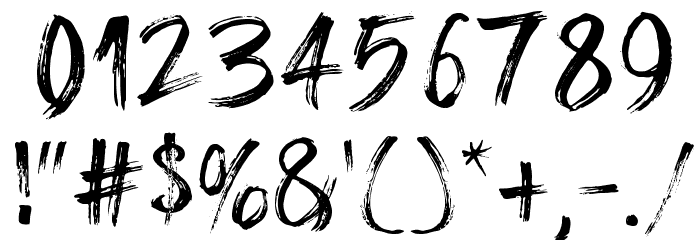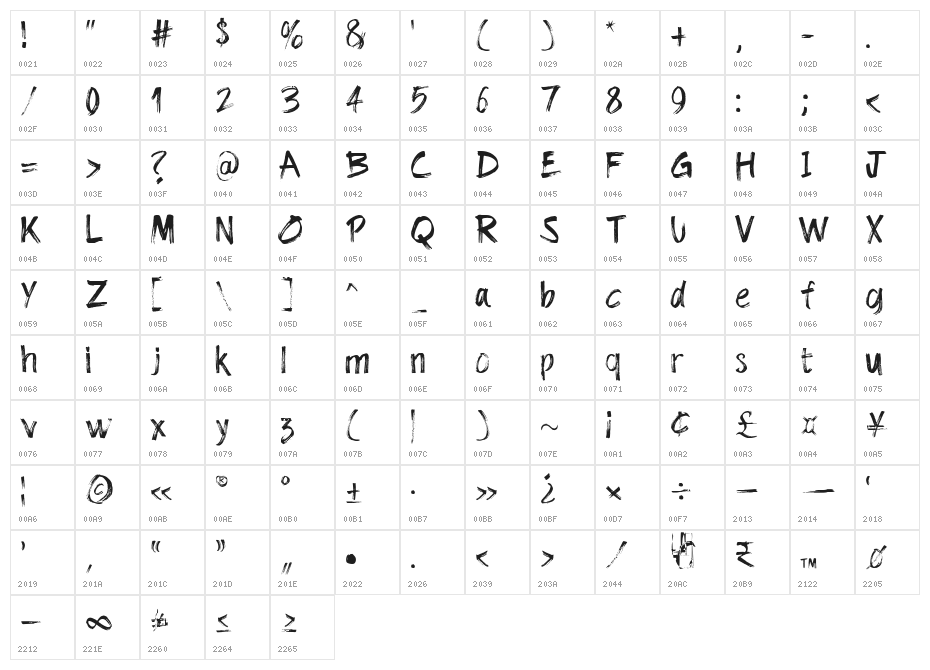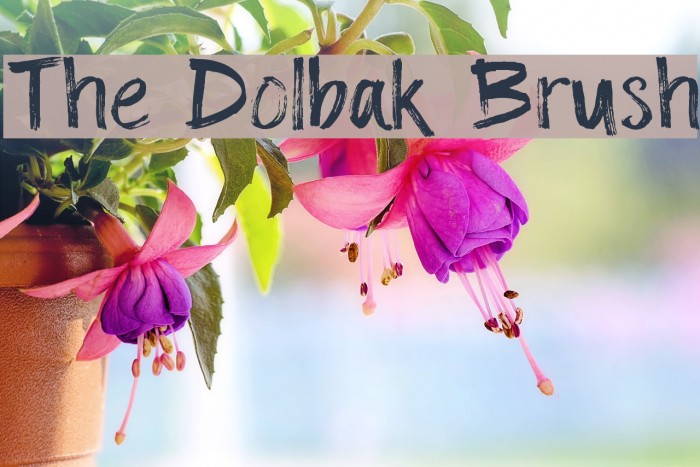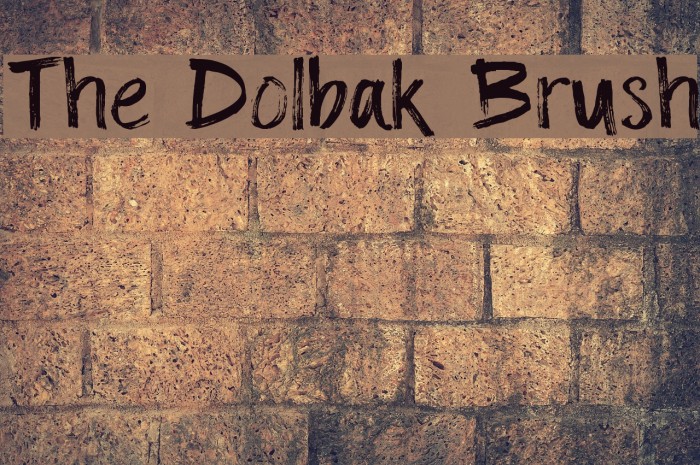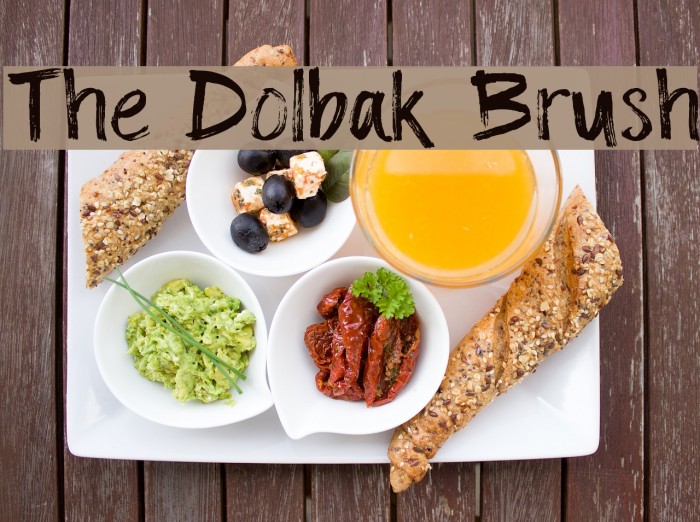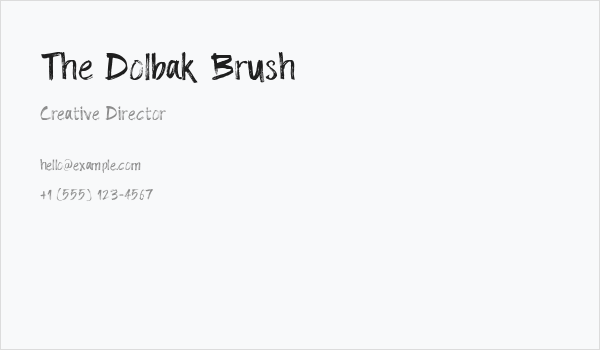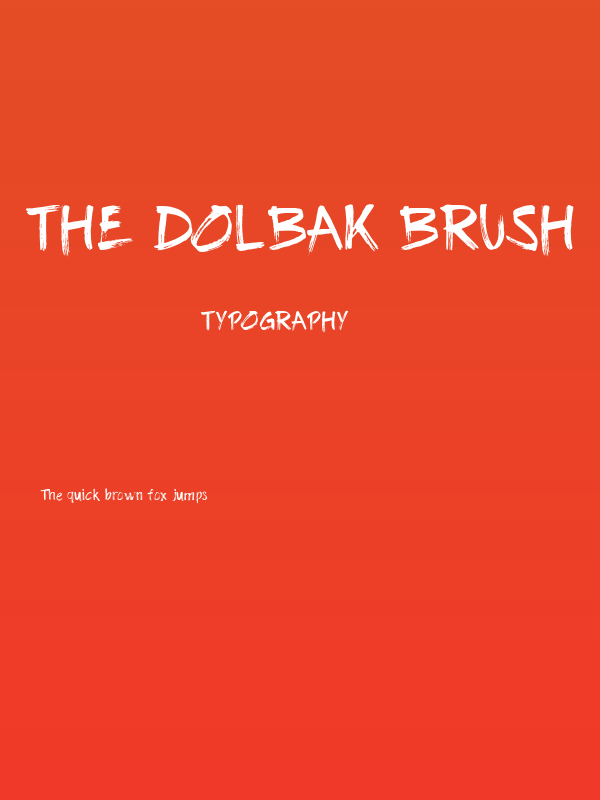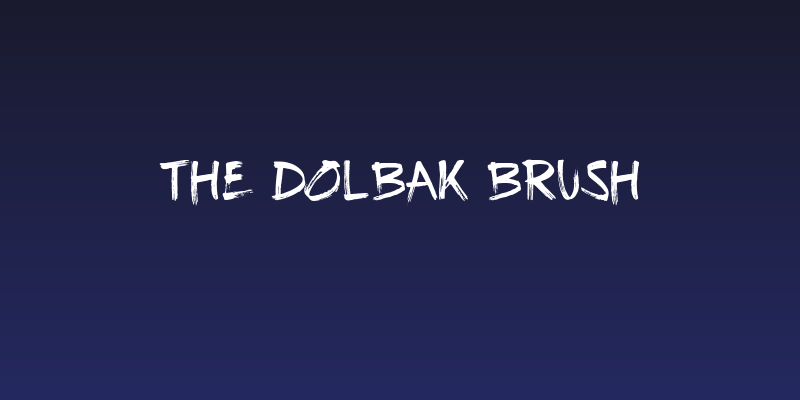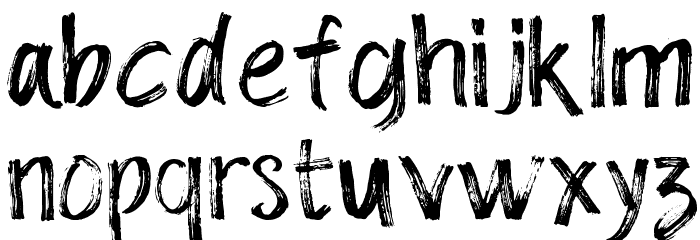
The Dolbak Brush Font
The Dolbak Brush Description
This font exudes a raw, energetic vibe with its brushstroke style, creating a sense of movement and dynamism. The letters are bold and expressive, with uneven edges and varying thickness that mimic the natural flow of hand-painted strokes. The uppercase and lowercase characters maintain a consistent style, while the numbers and special characters integrate seamlessly, adding to the font's cohesive appearance. Its artistic flair makes it ideal for projects that require a personal touch or a bold statement.
| Proposed Projects | Perfect for posters, album covers, branding, and any creative project needing a bold, artistic touch. |